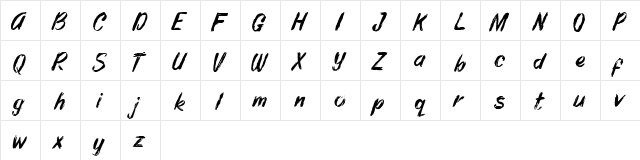
Tony Bhages Font Preview
Tony Bhages Tony Bhages
Tony Bhages Font Details
| Style | Tony Bhages |
| Foundry | Cundrawan (cove703) |
| Designer | Cundrawan |
Design Context for Tony Bhages Typeface
Tony Bhages is a composed and adaptable typeface that performs quietly and consistently across a wide range of design contexts.